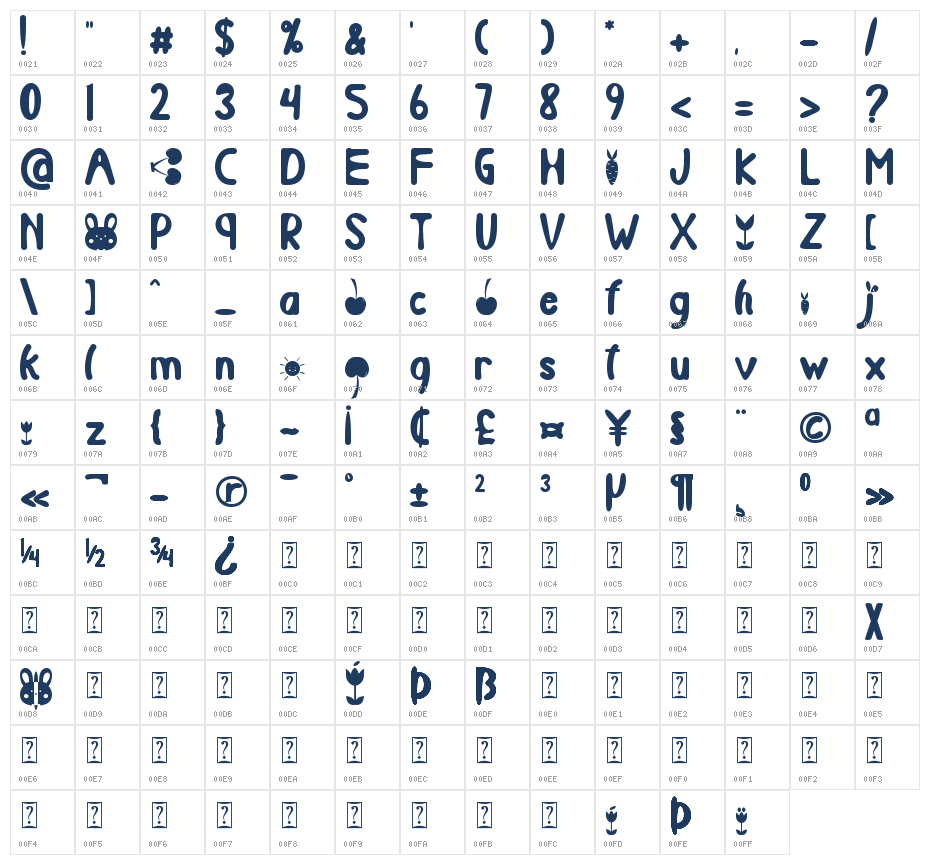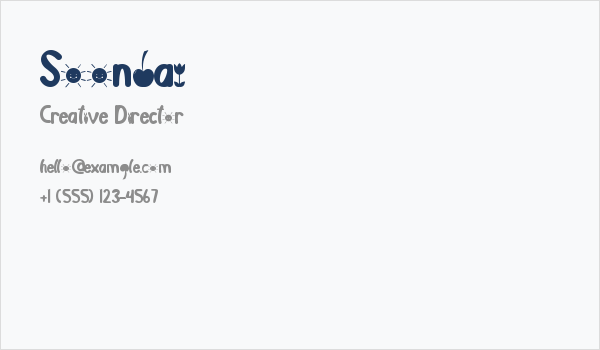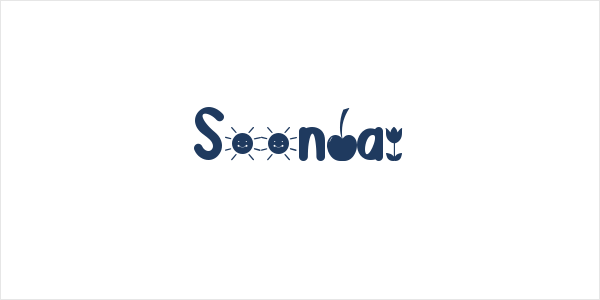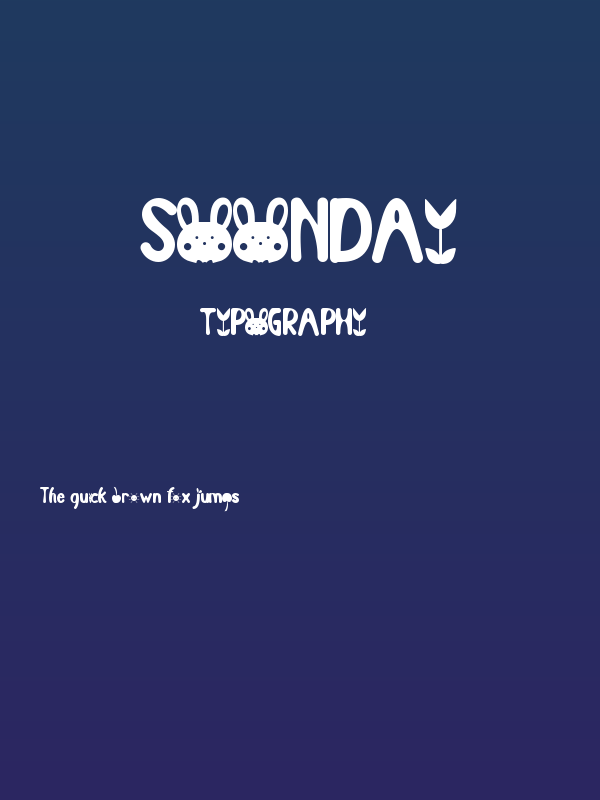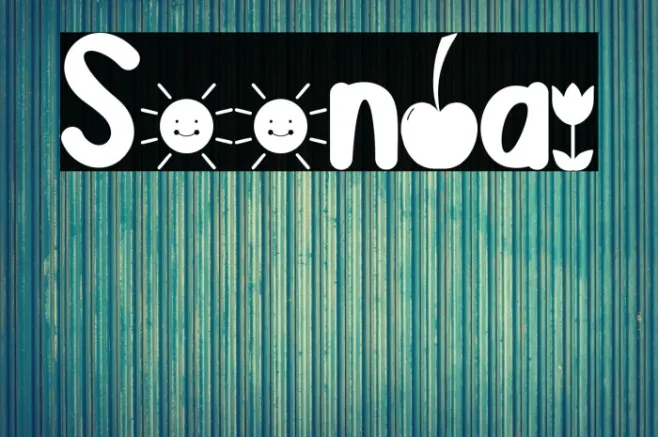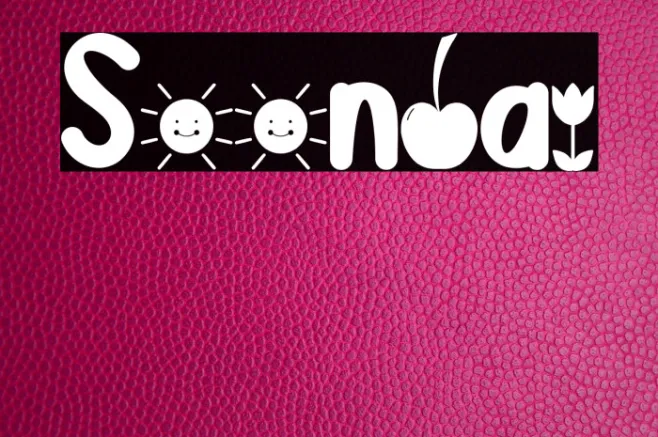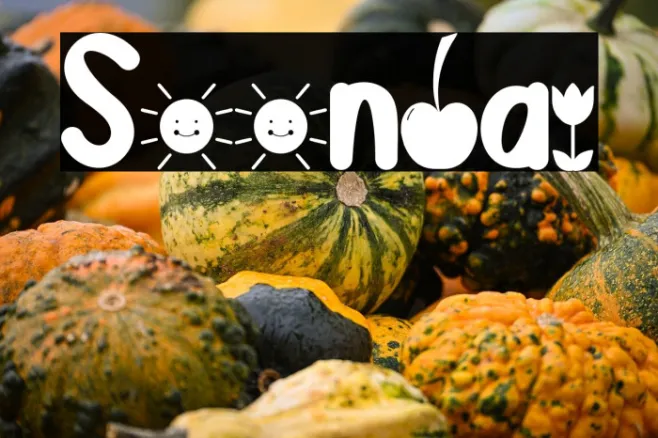
Soonday Font
Soonday Description
Playful, rounded, and whimsical font with decorative animal and object motifs integrated into the letterforms.
Soonday
| Overall Style | Whimsical, Playful, Decorative |
| Use Case | Headlines, Children's materials, Logos, Posters |